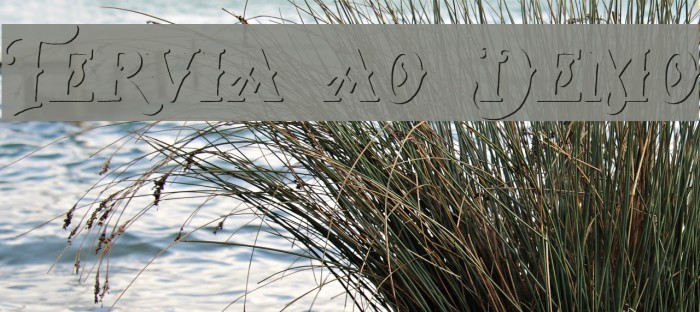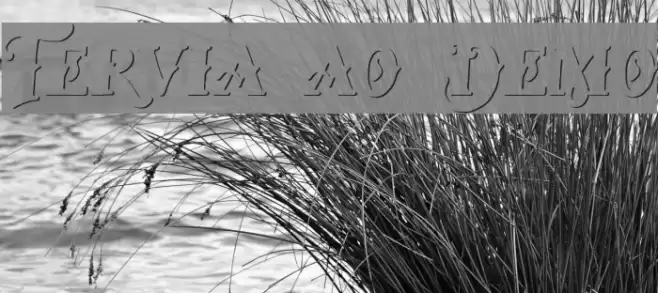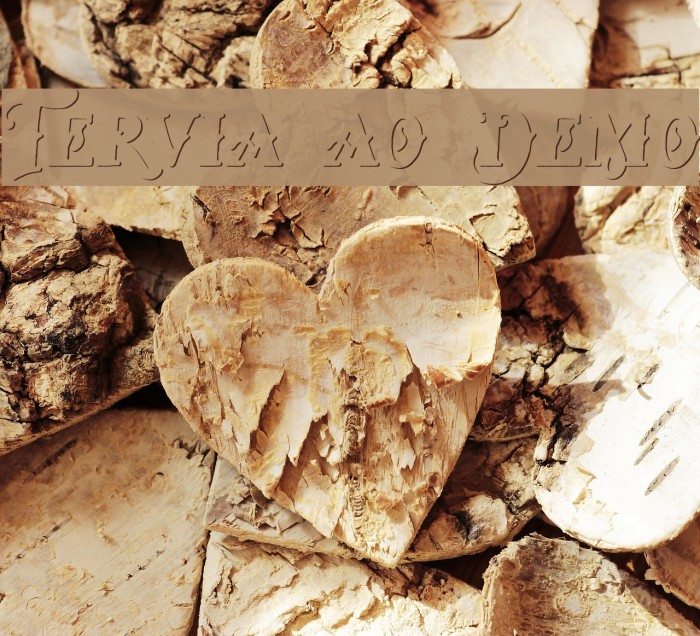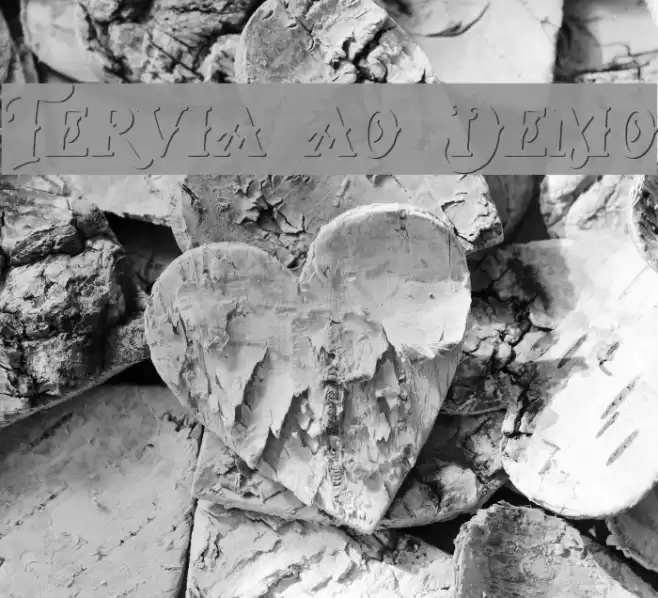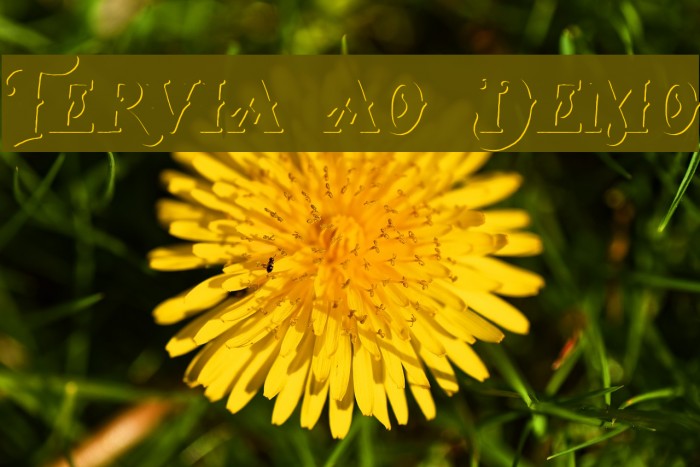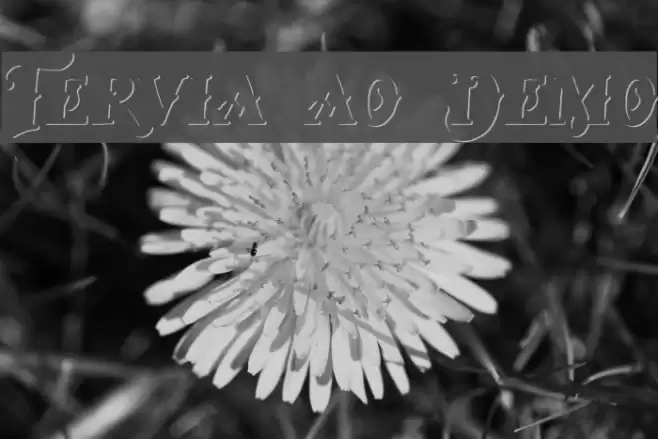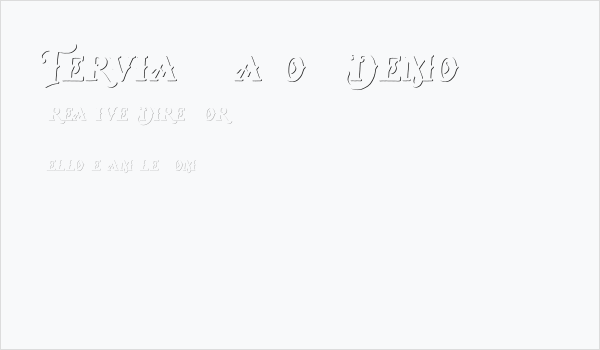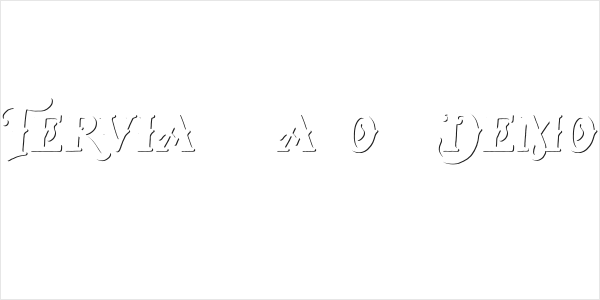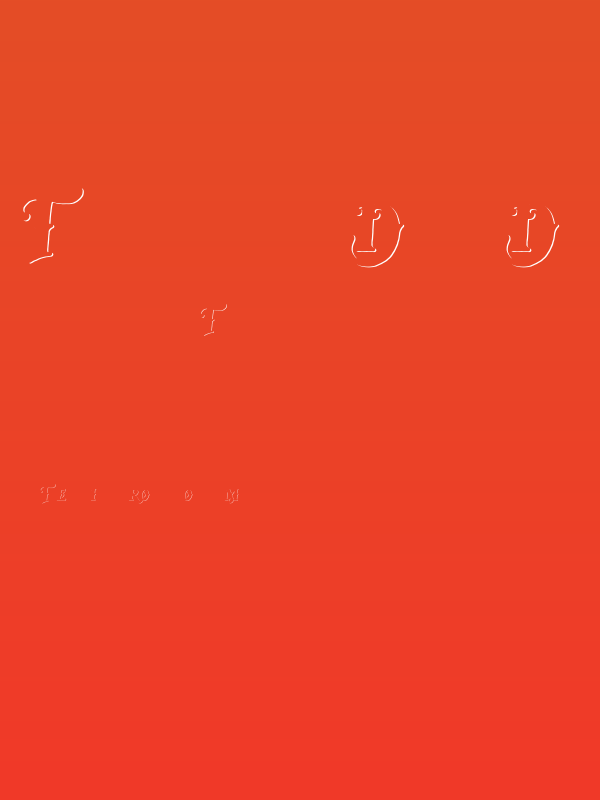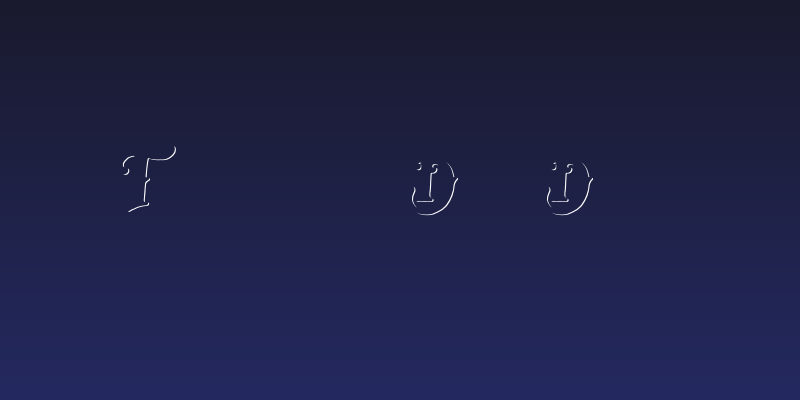
Tervia Shadow Demo Font
Tervia Shadow Demo Description
This font features a decorative and artistic style with a shadow effect that adds depth and dimension to each character. The letters are embellished with intricate details and flourishes, giving them a unique and elegant appearance. The uppercase letters are bold and prominent, while the lowercase letters maintain the same decorative style. The numbers and special characters are consistent with the overall design, making this font suitable for creative and eye-catching projects. Its distinct style makes it ideal for use in branding, invitations, and artistic designs.
| Use Case | Logos, Headlines, Artistic Designs |
| Proposed Projects | Ideal for branding, invitations, artistic designs, and decorative projects. |